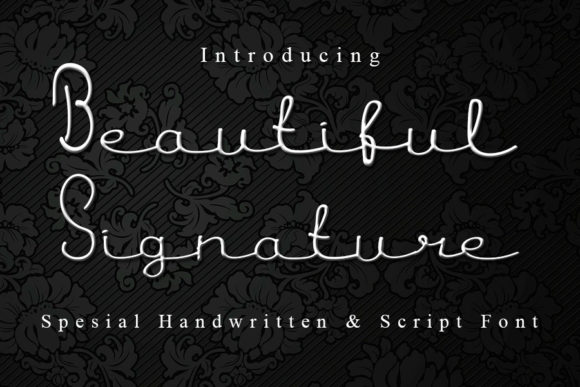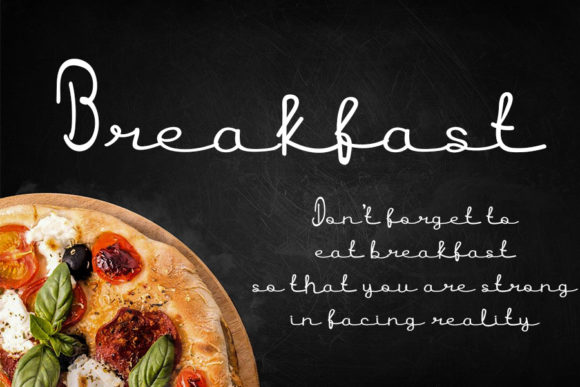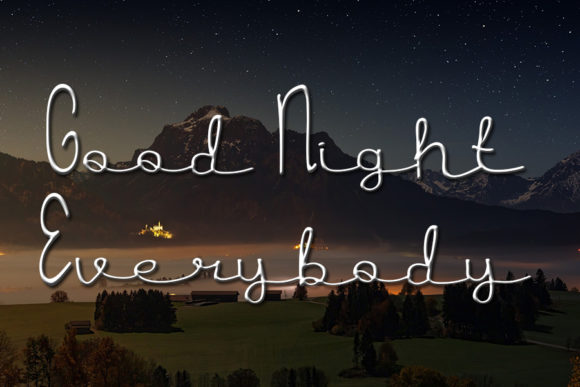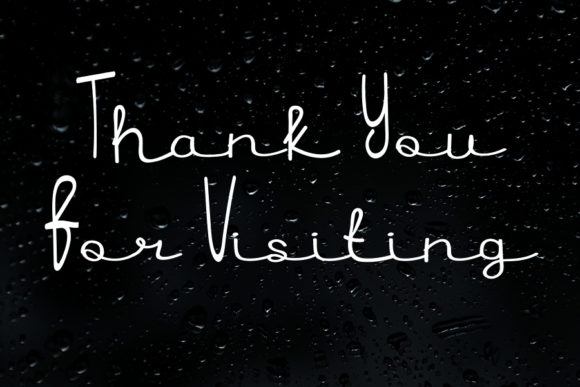
About Beautiful Signature Font
Beautiful Signature is a whimsical script font with a relaxed theme, featuring a lovely style. No matter the topic, this font will be an incredibly asset to your fonts’ library, as it has the potential to elevate any creation.